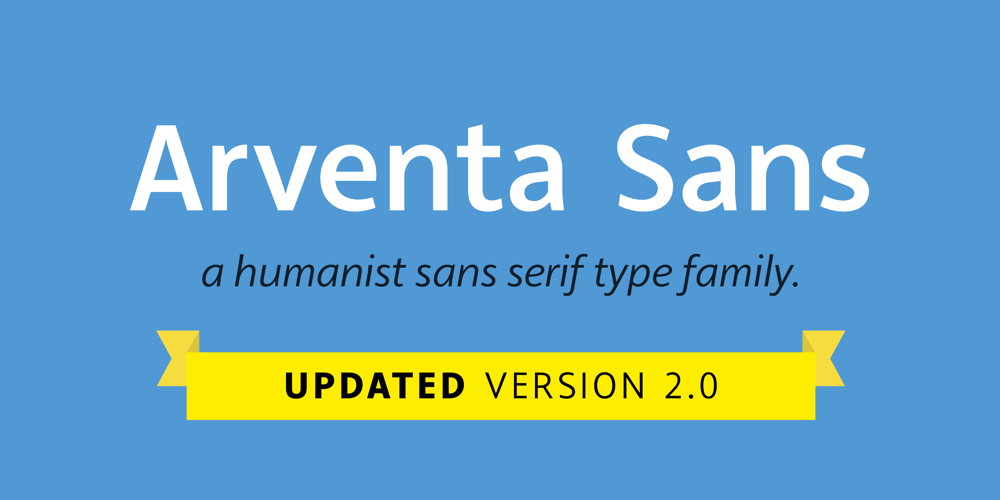
Arventa Sans Pro
Arventa Sans Pro font
Arventa Sans Pro Font Family was designed by Ingo Preuss and published by preussTYPE. Arventa Sans Pro contains 14 styles and family package options. Arventa was designed to be highly legible and flexible. Arventa offers a high quality alternative to contemporary humanist sans serifs and is a flexible family for editorials and corporate branding. Arventa comes in seven weights (ExtraLight, Light, Regular, Medium, Bold, Black and UltraBlack). I wanted to create a very refined family that could be used for display or body copy, for print or digital.